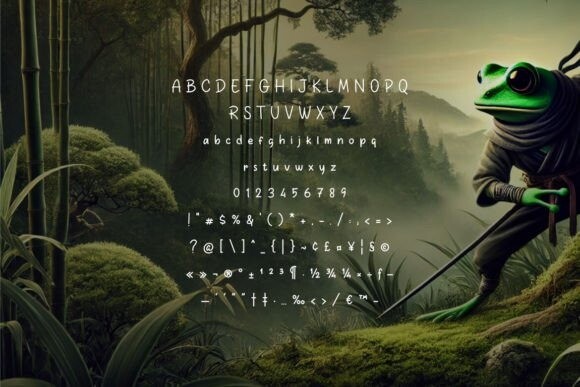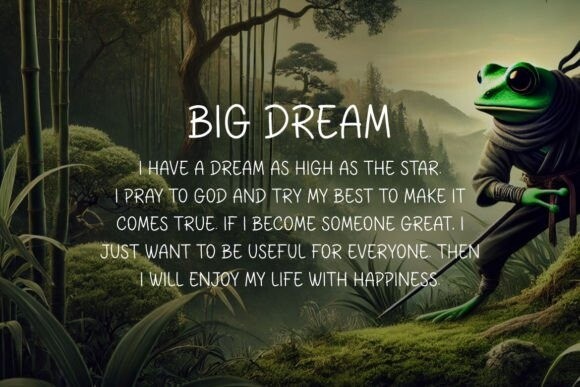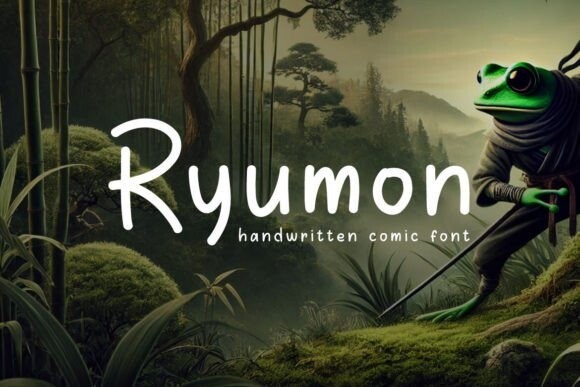
Ryumon Font
Ryumon Font, a fun and dynamic handwritten comic font designed to bring your projects to life! Perfectly crafted for comic books, illustrations, children’s books, and playful designs, **Ryumon** offers a unique blend of casual charm and artistic flair. Its smooth, bold strokes and lively character set make it ideal for headlines, posters, and digital graphics. The font’s hand-drawn style adds a personal touch, making it perfect for conveying humor, spontaneity, and storytelling.